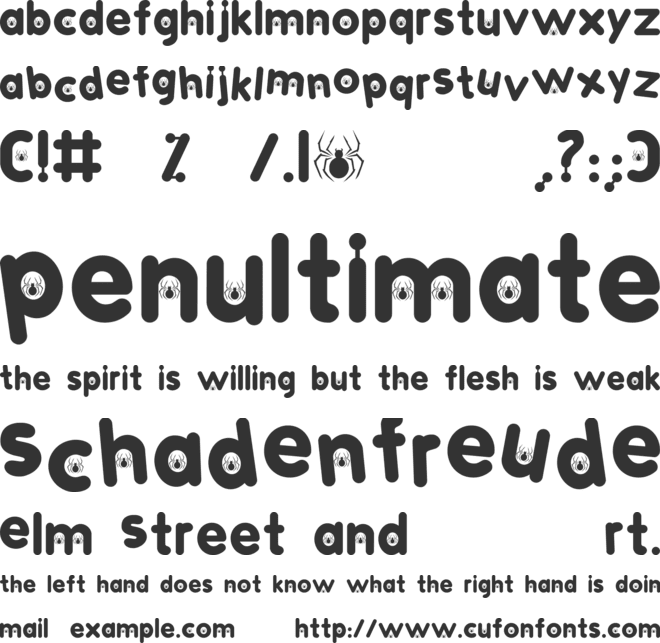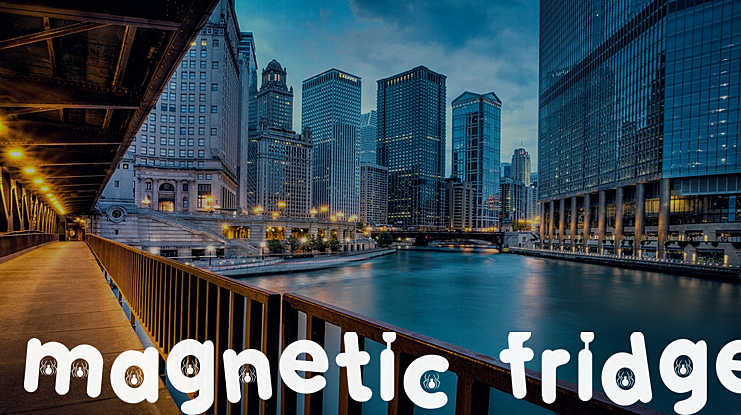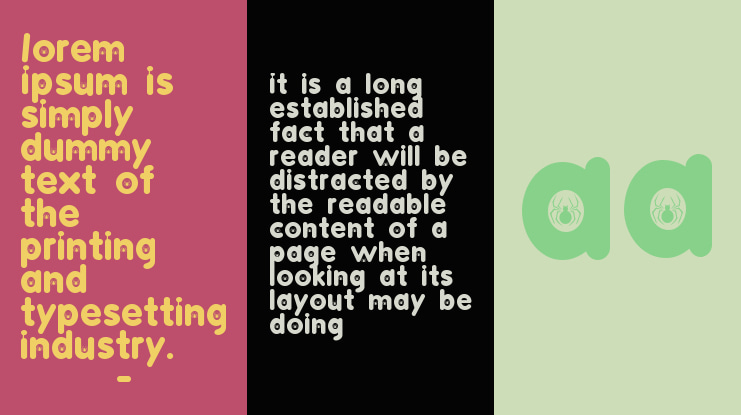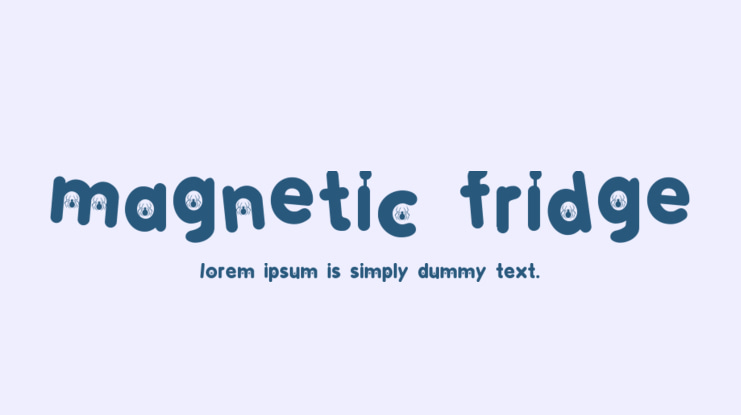
SpideRaY
Charityfonts4AlzheimersResearch created by SpideRaYsfoNtS
We aim to raise £500 to help, I recently watched the powerful dementia campaign to challenge misunderstanding of condition of Alzheimer’s where Samuel L. Jackson gives everyone his advice to #sharetheorange so I decided to do this my way by creating a donationware typeface called MAGNETIC FRIDGE after my 9 year old daughter gave me a magnet from our fridge, it occurred to me that we open our fridge's at least once a day, my Mum had fridge magnets from everywhere she visited I guess it was her way of remembering where she had enjoyed herself with her family, for me will now be a reminder of the problems my Dad had coping with this the most cruel of diseases, and the horrible way he treated my Mum, by not dealing nor understanding her problems.
It's now been a year since we lost my amazing Mum to complications linked to vascular problems the attributing factors to her passing was the early onset of Dementia. Alzheimer’s disease and vascular dementia are the most common types. Sadly she passed away in the ICU after a bowel operation as she also had ischemic heart disease. I knew she was a very poorly woman and I have now accepted the fact that she is no longer with us. However I miss still her every day!
Despite all these things being lost, she still retained some of her abilities, and still felt an emotional connection to people she even changed her will to include both my children, however my father her life partner has not coped with the loss and as a result has now disowned me his only living relative, he remains angry with me instead of being angry with himself for not coping with Mum's increasing memory problems. I only wish I had been more aware of her problems and had known more about her early dementia as she started to change so that I could have given her the understanding and help she deserved sooner. I guess you always think these things happen to everyone else? Please donate to Altzhemier's Research UK registered charity No. 1077089 and SC042474